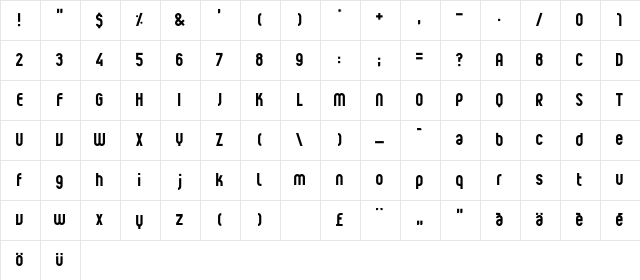
Globus Regular
Design Context for Globus
Globus is a composed and adaptable typeface that performs quietly and consistently across a wide range of design contexts.